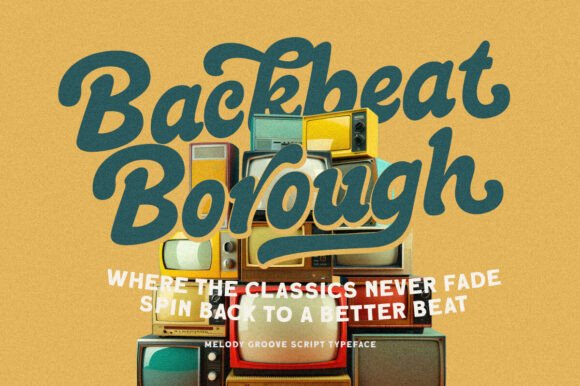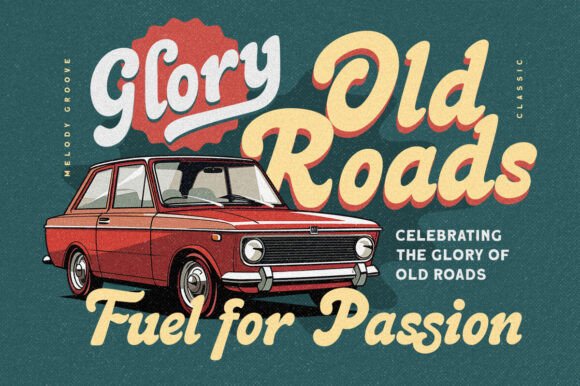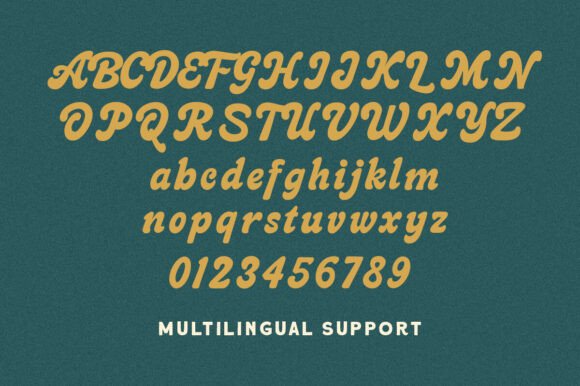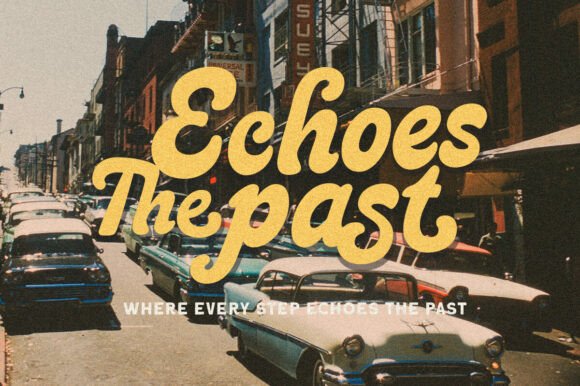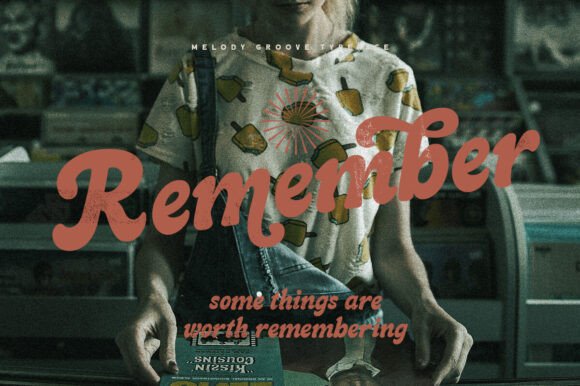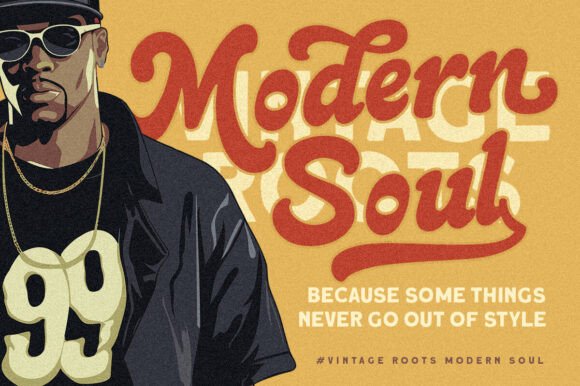
Introduction to Melody Groove Font
Melody Groove is a bold script font that exudes a retro vibe with a modern twist.
Featuring bold, flowing curves and a character-rich design, it evokes a warm yet energetic vintage feel, reminiscent of charming old-town memories Perfect for design projects such as posters, branding, packaging, and invitations, Melody Groove brings a sense of nostalgia paired with a fresh, confident flair.
Key Features of Melody Groove Font
Why Choose Melody Groove Font?